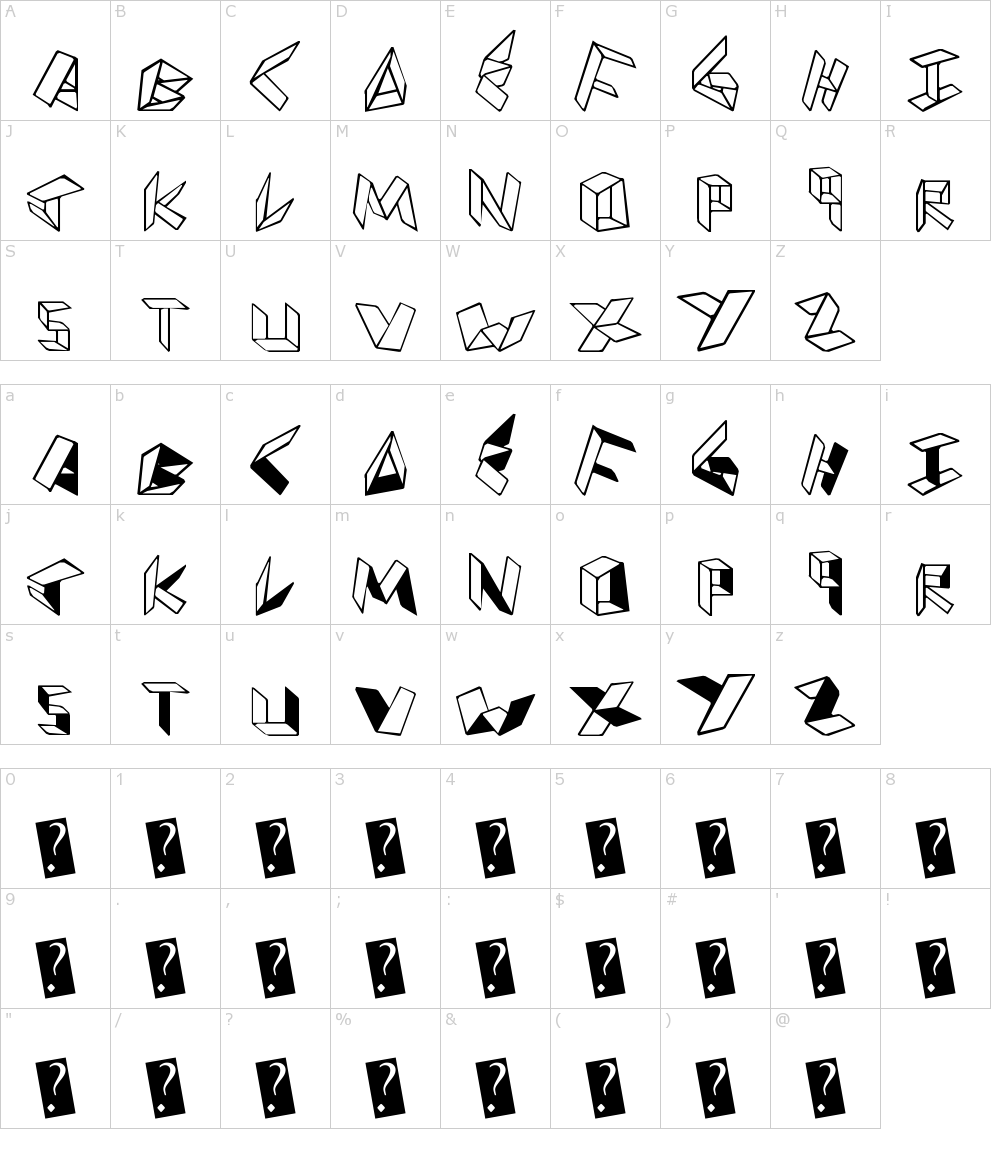
+23 Folder Fonts 2022
Web Download Free Font Folders By Weape Design From Category Handwriting
The bbc commissioned it for an educational broadcast. It was commissioned by the bbc for an educational program and was designed to resemble the. Web alter the typefaces.
Web Folder Is The Perfect Font For All Your Fun Designs.
You can also visit the author. Web folder will imbue your designs with a spirit of scholarly material without overtly resembling a print tracing guide. The font files are in that folder.